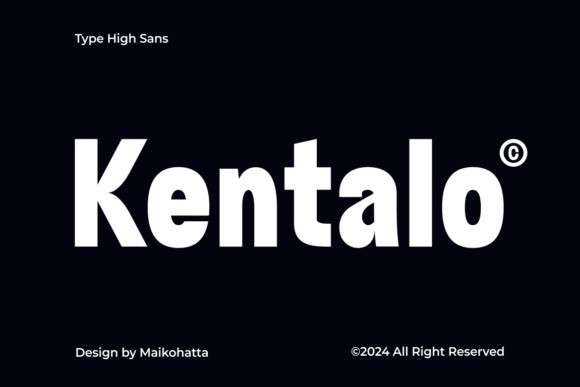
Kentalo Font
Designer: maikofarazhatta
Kentalo Font is a bold and assertive sans serif font. No matter the topic, this font will be an incredible asset to your fonts’ library, as it has the potential to elevate any creation.